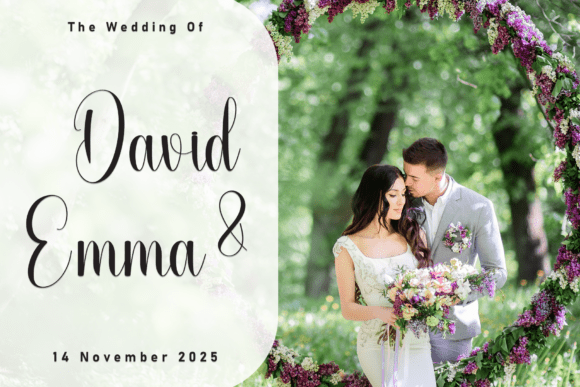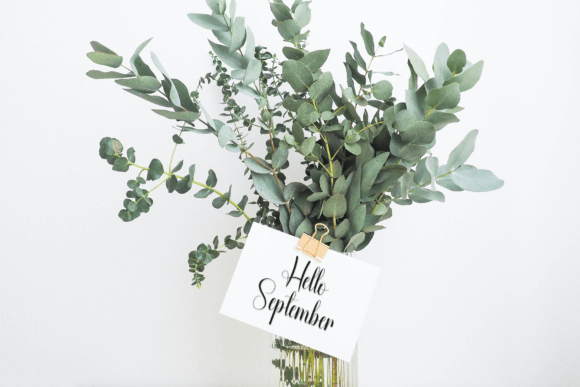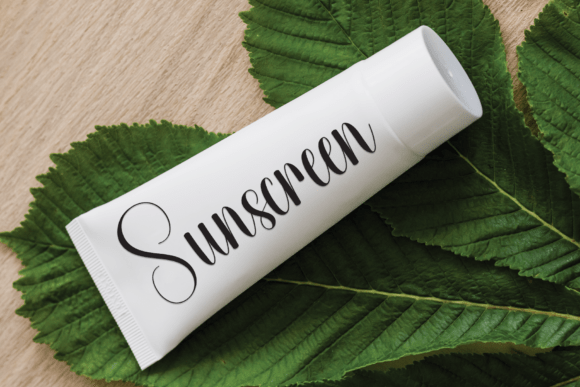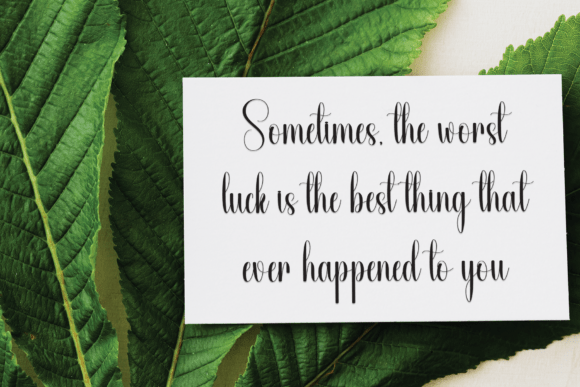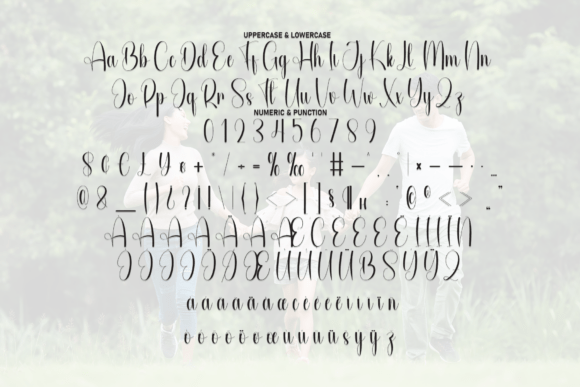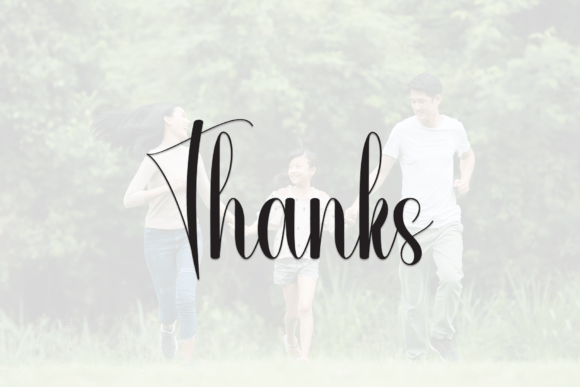
Introducing Family Font: The Perfect Blend of Elegance and Warmth
Are you looking for a font that can add a personal touch to your designs? Look no further than Family Font, a beautiful handwritten script font that combines elegance with warmth. Family Style, the latest addition to the world of typography, is perfect for designs that need a heartfelt and sophisticated feel.
A Graceful Handwritten Script Font
Family Style is a stunning handwritten script font that boasts smooth, flowing strokes and delicate swashes, creating a natural handwritten feel that’s perfect for a wide range of design projects. Its modern structure ensures readability and balance in both small and large sizes, making it an excellent choice for designs that require a touch of elegance and sophistication.
Whether you’re designing wedding invitations, branding materials, greeting cards, quotes, or social media posts, Family Font is the perfect choice. Its versatile and stylish personality makes every design feel unique and timeless, adding a welcoming charm that’s sure to captivate your audience.
Key Features of Family Font
- Elegant and Warmth: Family Style combines elegance with warmth, making it perfect for designs that need a personal touch.
- Smooth and Flowing Strokes: The font’s smooth, flowing strokes and delicate swashes create a natural handwritten feel.
- Modern Structure: Its modern structure ensures readability and balance in both small and large sizes.
- PUA-Encoded: Family font is PUA-encoded, ensuring effortless access to all glyphs, swashes, and alternate characters.
- Versatile and Stylish: Family Style has a versatile and stylish personality, making every design feel unique and timeless.
Why Choose Family Font?
There are many reasons why Family Font stands out from the rest. Here are just a few:
- Easy to Use: With its PUA-encoded feature, you can easily access all glyphs, swashes, and alternate characters, making it easy to customize your creations.
- Highly Versatile: Family Font is perfect for a wide range of design projects, from wedding invitations to social media posts.
- Unique and Timeless: The font’s elegant and warm personality makes every design feel unique and timeless.
Tips for Using Family Font
Here are a few tips for using Family Font in your designs:
- Pair it with Other Fonts: Family Font pairs well with other fonts, making it easy to create a unique and visually appealing design.
- Experiment with Swashes: The font’s delicate swashes can add a touch of elegance to your designs. Experiment with different swashes to find the perfect look.
- Use it for Headings and Titles: Family Font is perfect for headings and titles, adding a touch of sophistication and elegance to your designs.